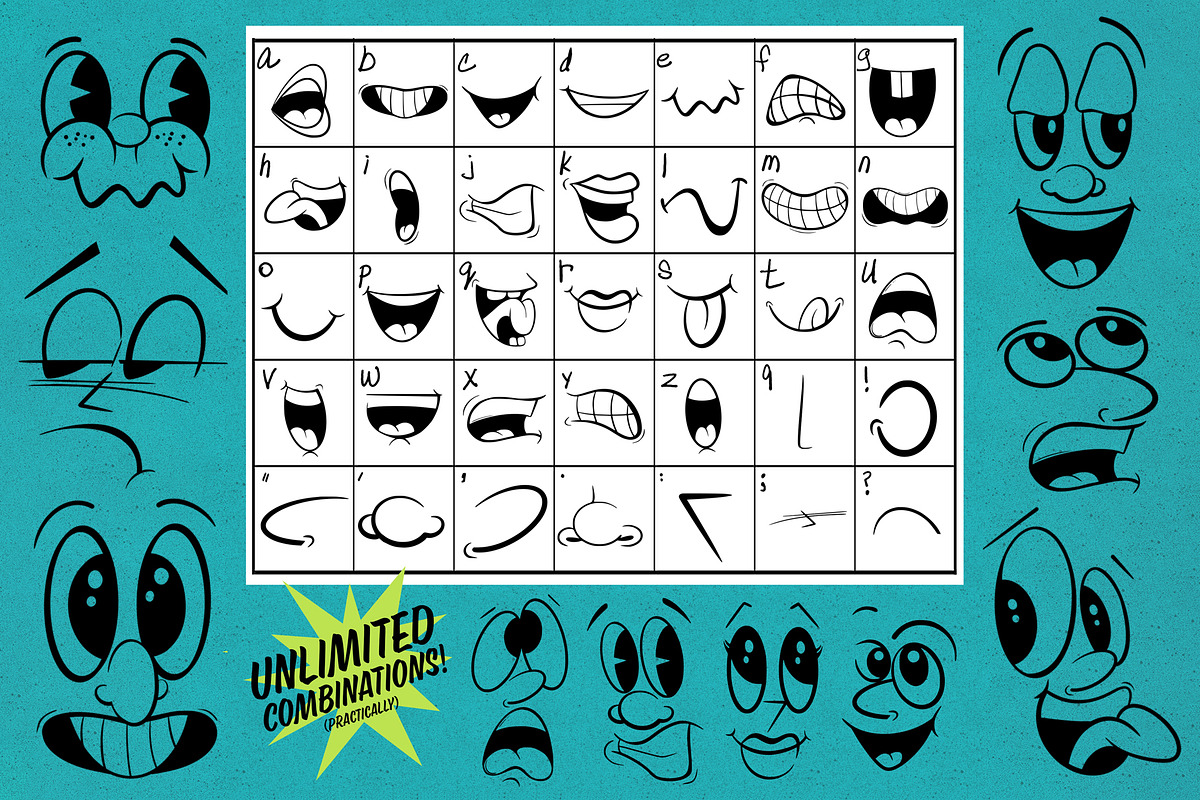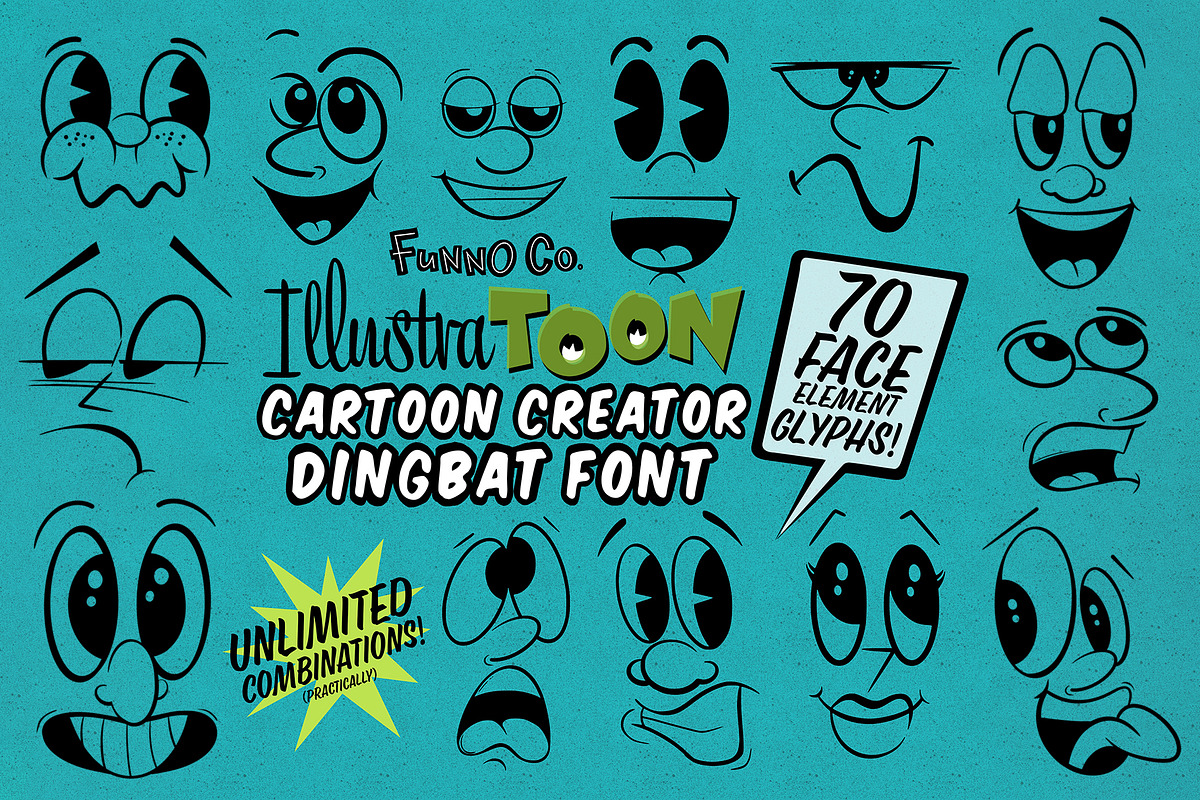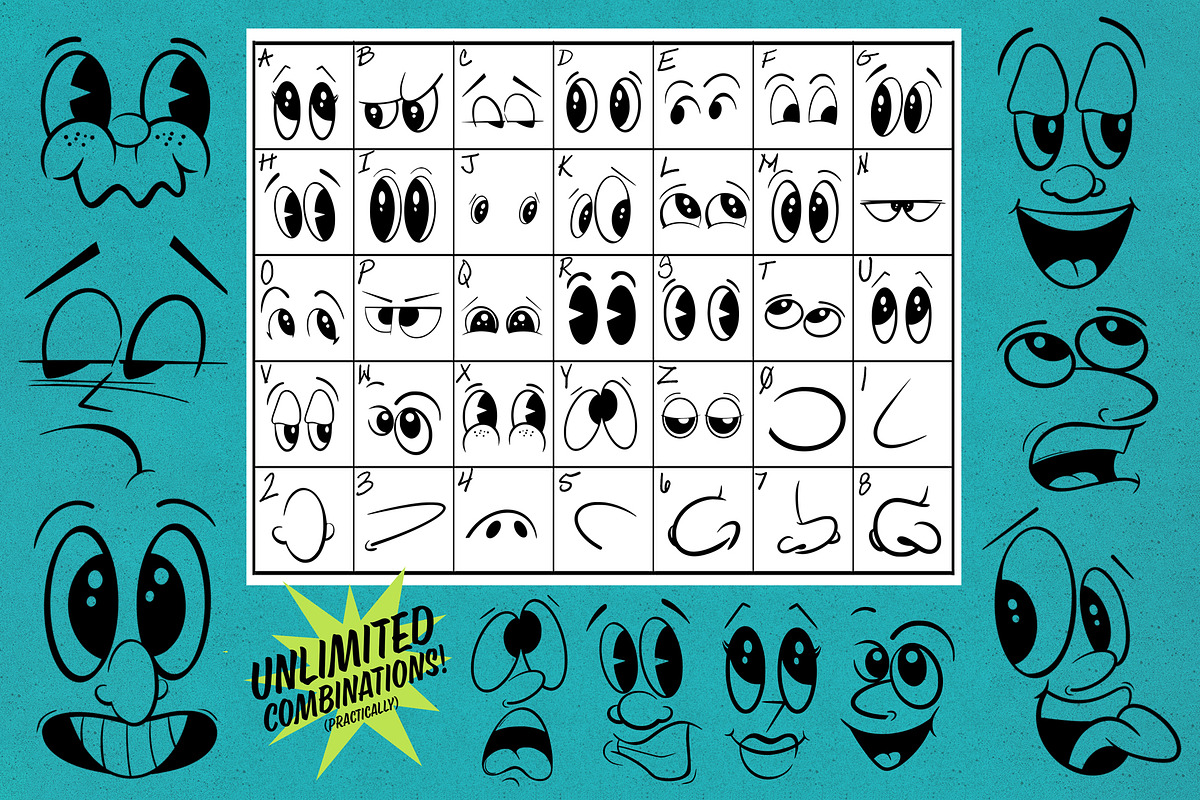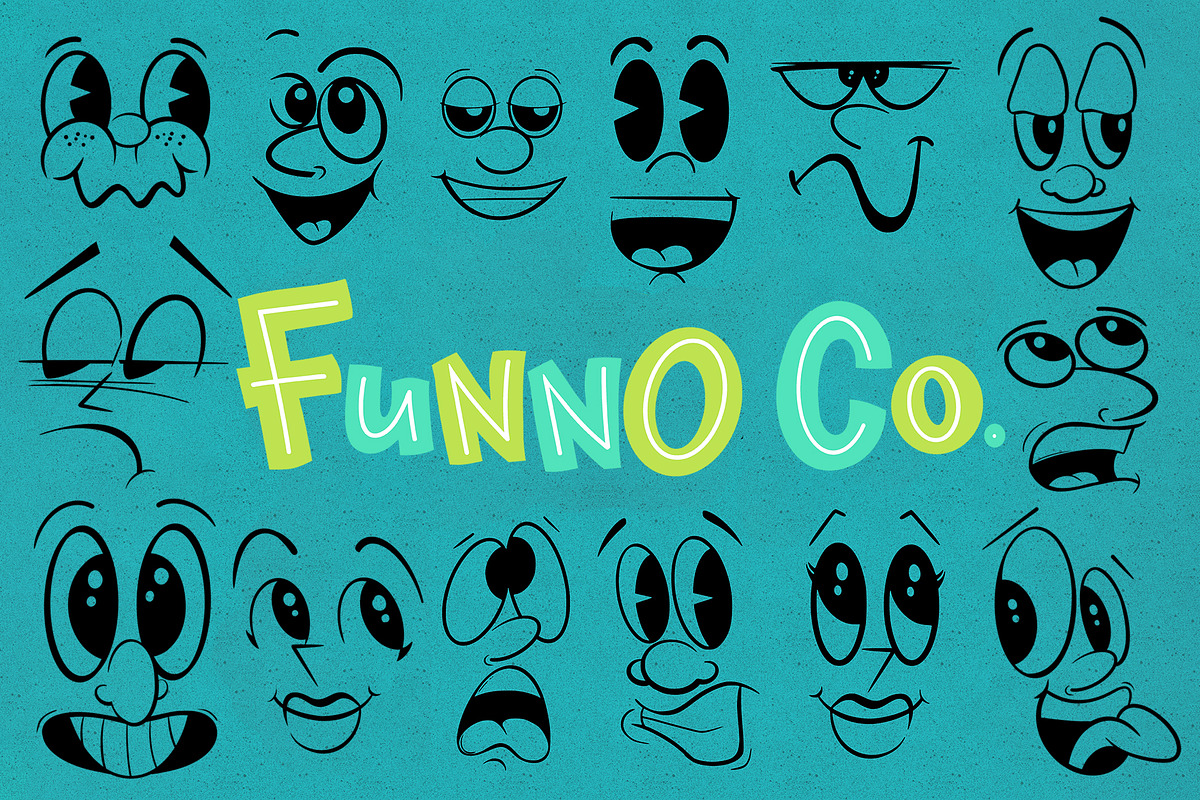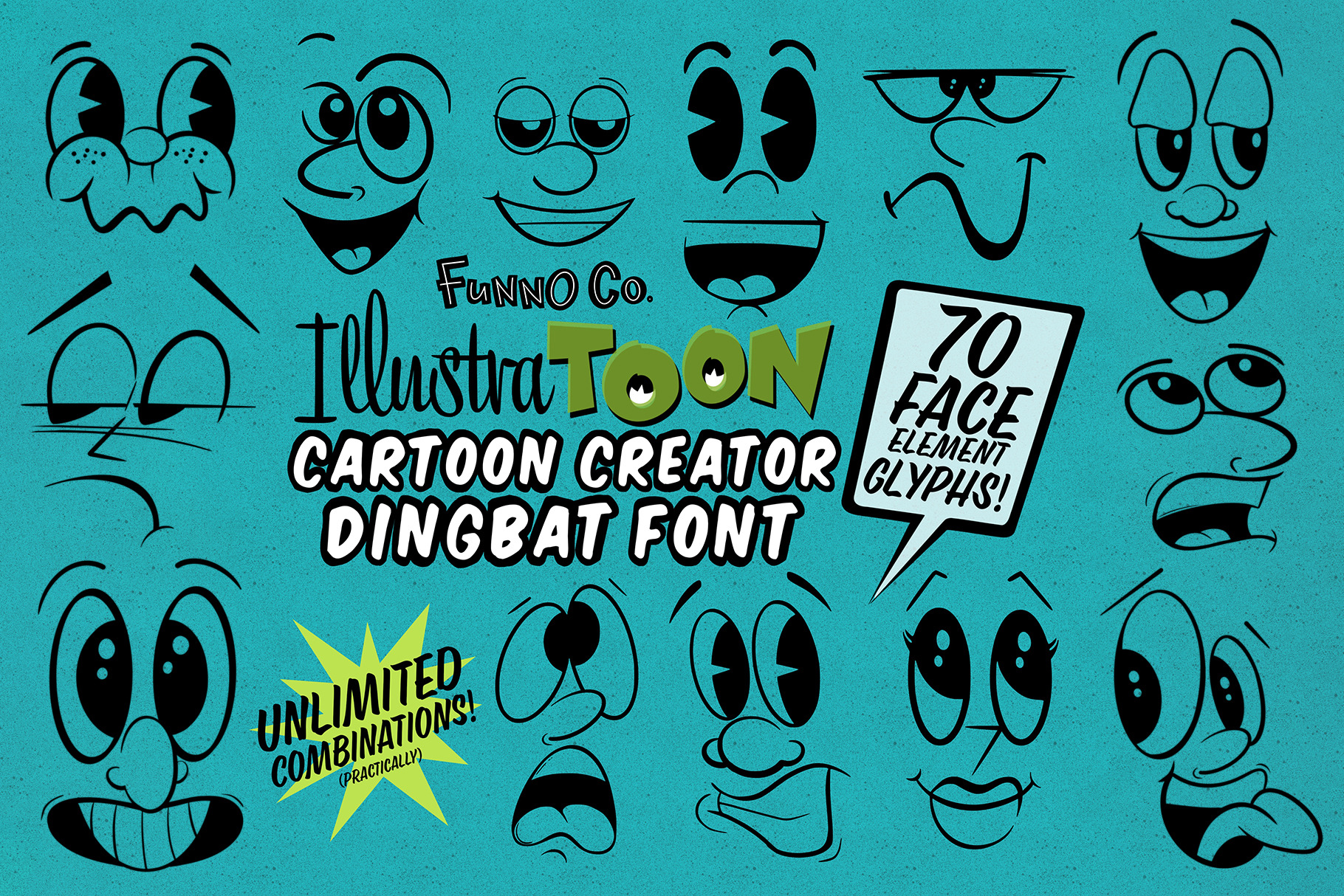
Cartoon Face Creator Dingbat Font
Slap a face onto just about anything with the cartoon face creator in dingbat font form! 70 glyphs with so many possible combinations make it super easy to anthropomorphize any shape!